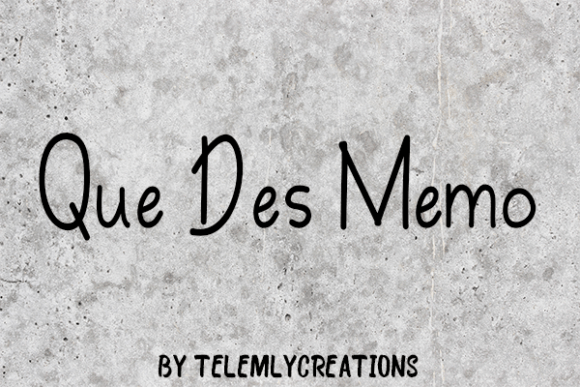
Que Des Memo Font
About Que Des Memo Font
“Que Des Memo” is a charming handwritten font that radiates a cute and playful vibe. Tailored for creating eye-catching logos, establishing memorable branding, and crafting engaging quotes, each letter in this font boasts a unique and beautiful touch that collectively brings your design to life.
In the realm of logos, “Que Des Memo” adds a delightful and distinctive element. Its handwritten charm injects personality into brand identities, making it an excellent choice for businesses or projects that seek to convey a friendly and approachable image. The cute aesthetic of the font ensures that the logo stands out with an endearing and memorable character.
For branding initiatives, “Que Des Memo” offers a fresh and charming typographic solution. The handwritten style adds a personalized and authentic feel, making it an ideal companion for businesses aiming to establish a genuine connection with their audience. Whether employed in packaging, marketing materials, or online presence, this font introduces a touch of warmth and uniqueness.
Quotes, being powerful expressions, find an ideal medium in “Que Des Memo.” The cute handwritten letters bring a sense of playfulness and positivity to the words, making the quotes visually engaging and shareable across various platforms. Whether incorporated into social media posts or printed materials, “Que Des Memo” has the ability to convey messages with style.
The distinctiveness of each letter in “Que Des Memo” ensures that your design stands out with its own character. The handcrafted touch adds an element of authenticity, making it a standout choice for projects that demand a unique and memorable typographic style.
In essence, “Que Des Memo” is not just a font; it’s a design tool that infuses a cute and playful energy into your creative projects. Whether aiming for a friendly vibe in your branding or seeking to make a statement with eye-catching quotes, this font has the ability to elevate your design and create a lasting impact. Embrace the charm of “Que Des Memo,” and watch as your logos, branding, and quotes come alive with its delightful handwritten touch.